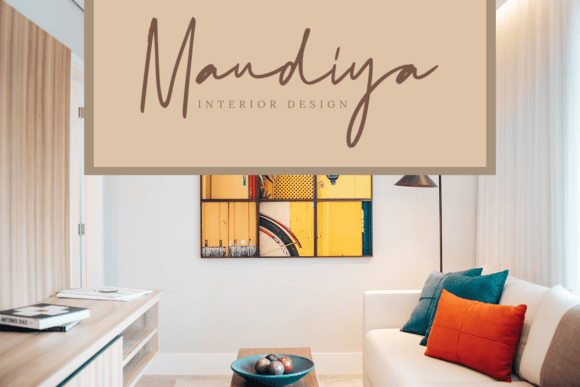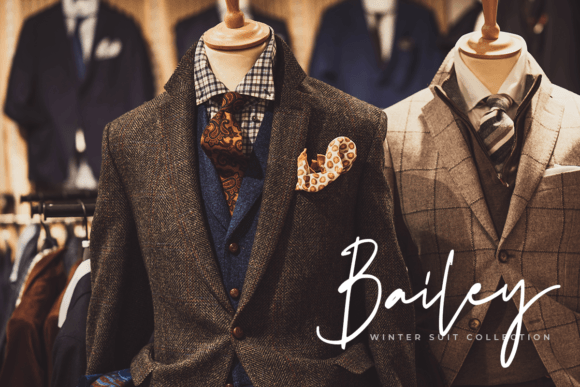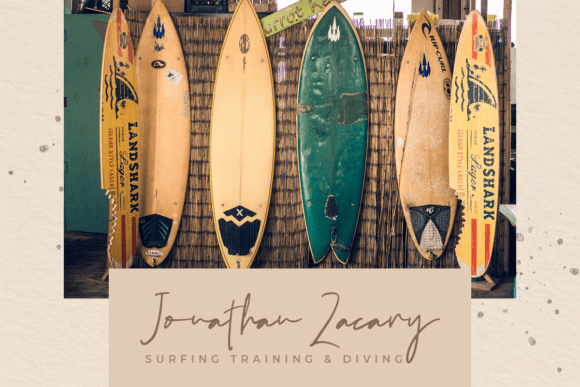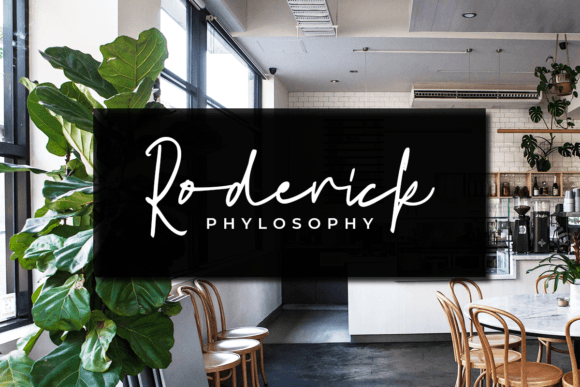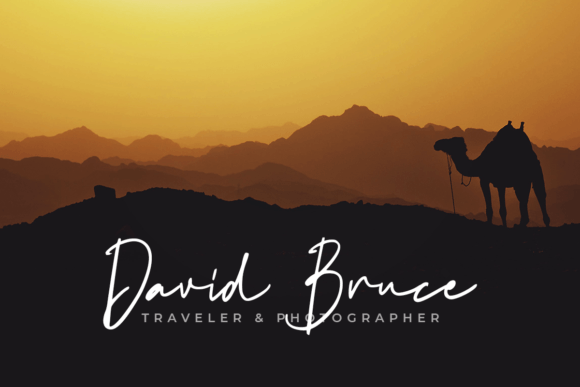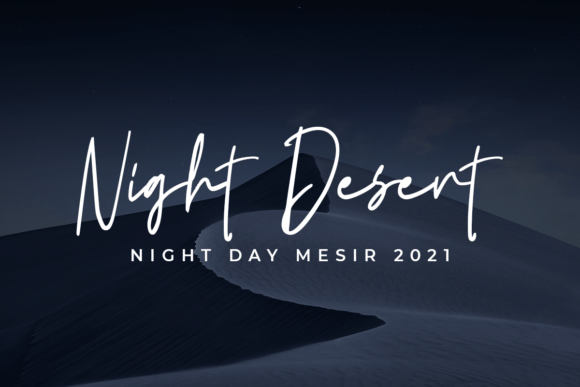
Introducing Backyard Font: The Modern Signature Font for Your Design Needs
Are you a designer or crafter looking for a unique and modern font to elevate your project designs or professional logos? Look no further than Backyard Font, a specially crafted font that embodies a nice and modern style, perfect for creating stunning designs. In this article, we’ll dive into the features and benefits of Backyard Font, and explore how it can enhance your design workflow.
What is Backyard Font?
Backyard Font is a modern signature font that boasts a sleek and contemporary design. Its clean lines, elegant curves, and sophisticated style make it an ideal choice for designers and crafters seeking to create professional-looking logos, products, merchandise, and more. This font is carefully crafted to provide a unique and distinctive look that sets it apart from other fonts.
Key Features of Backyard Font
- Modern Style: Backyard Font features a modern style that is both trendy and timeless, making it perfect for designs that require a fresh and contemporary look.
- Elegant and Sophisticated: The font’s elegant curves and clean lines give it a sophisticated feel that’s ideal for professional logos, branding, and marketing materials.
- Easy to Use: Backyard Font is designed to be user-friendly, making it easy to integrate into your design workflow, even for those with limited font expertise.
- Unique Results: With Backyard Font, you can achieve unique and professional-looking results that will set your designs apart from the rest.
Benefits of Using Backyard Font
So, why choose Backyard Font for your design needs? Here are just a few benefits of using this versatile font:
- Versatility: Backyard Font can be used for a wide range of design applications, including logos, branding, merchandise, products, and more.
- Professional Look: The font’s modern and sophisticated style gives your designs a professional look that’s sure to impress.
- Time-Saving: With Backyard Font, you can quickly and easily create stunning designs without spending hours searching for the perfect font.
- Customization: The font’s unique style and flexibility make it easy to customize and adapt to your specific design needs.
How to Use Backyard Font in Your Designs
Using Backyard Font in your designs is easy! Here are a few tips to get you started:
- Pair it with Other Fonts: Experiment with pairing Backyard Font with other fonts to create a unique and visually appealing design.
- Adjust Font Sizes: Play with different font sizes to create visual hierarchy and add emphasis to your design.
- Experiment with Colors: Try out different colors and color combinations to find the perfect match for your design.
Who is Backyard Font for?
Backyard Font is perfect for:
- Graphic Designers: Looking for a modern and sophisticated font to elevate their designs.
- Crafters: Seeking a unique and professional-looking font for their handmade products.
- Marketers: Needing a font that can help them create stunning branding and marketing materials.
- Small Business Owners: Looking for a font that can help them establish a professional brand identity.
In conclusion, Backyard Font is a modern signature font that offers a unique and sophisticated style perfect for designers and crafters. Its ease of use, versatility, and professional look make it an ideal choice for a wide range of design applications. Whether you’re looking to create stunning logos, products, merchandise, or marketing materials, Backyard Font is sure to become a go-to font in your design arsenal.